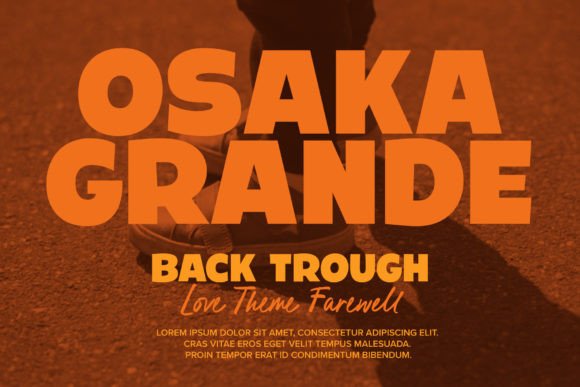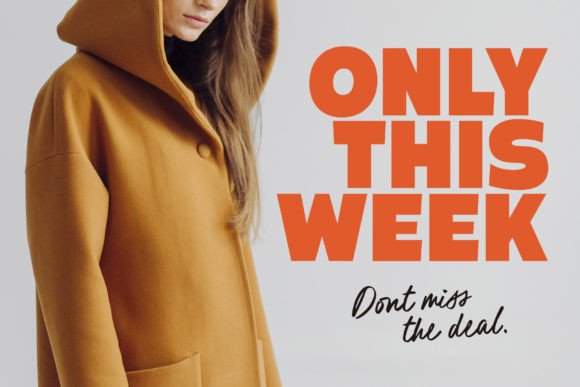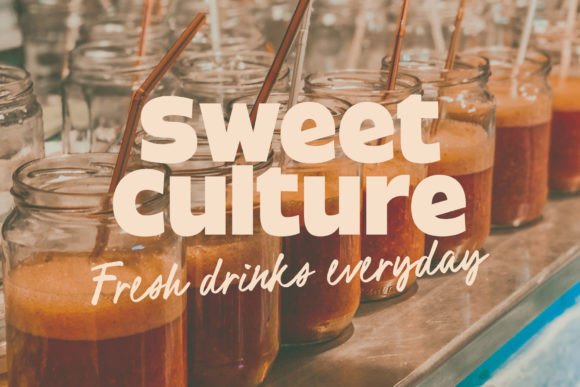
Introduction to Intimate Summer Font
Introducing Intimate Summer Font Duo, featuring a strong and bold sans font alongside a casual handwriting-inspired script font.
This duo is a perfect combination that brings harmony and versatility to your creative projects The bold sans font exudes strength and confidence with its clean lines and thick letterforms.
Key Features of Intimate Summer Font